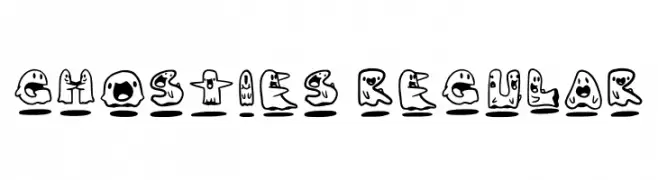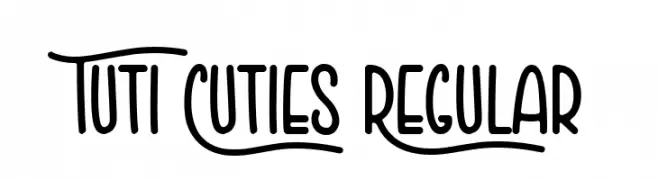
A dynamic and elegant script font with smooth, flowing curves.
A modern, elegant script font with flowing, cursive lines and graceful loops.
A bold, flowing script font with elegant curves and consistent stroke width.
A refined and elegant script font with flowing, continuous strokes.
A modern, elegant handwritten font with flowing, elongated characters.
A bold, futuristic font with sharp angles and geometric shapes, ideal for sci-fi themes.
A bold, italic, futuristic font with sharp, angular lines and a modern style.
A playful font with heart-shaped accents, perfect for conveying warmth and love.
A playful, hand-drawn font with rounded, bold characters.
A playful, ghost-themed font with a hand-drawn, cartoonish style.